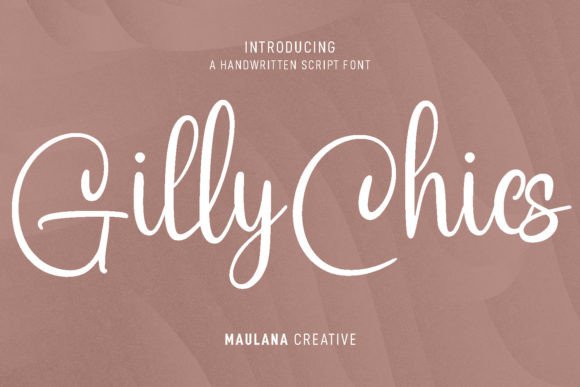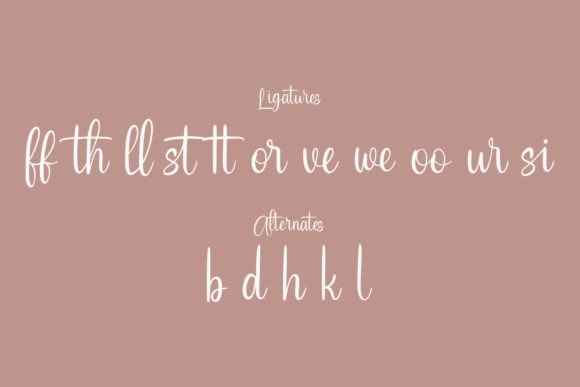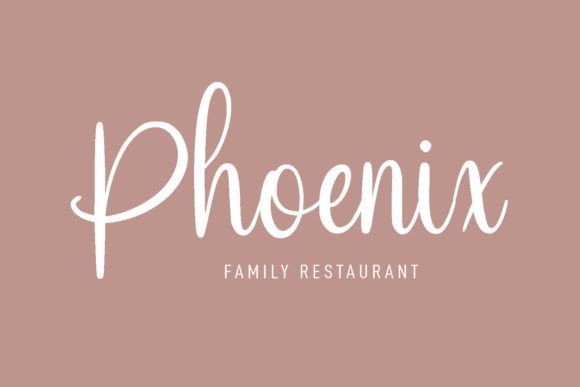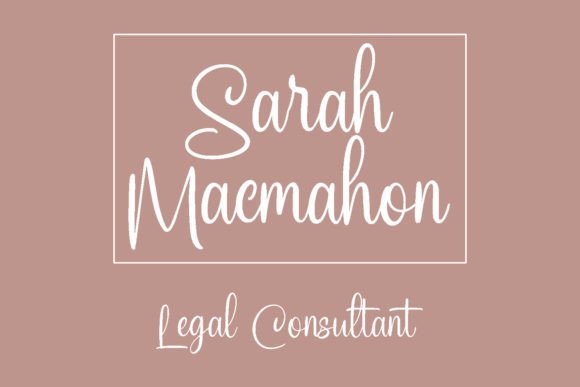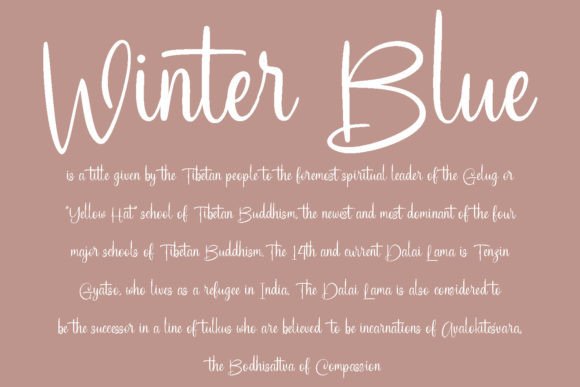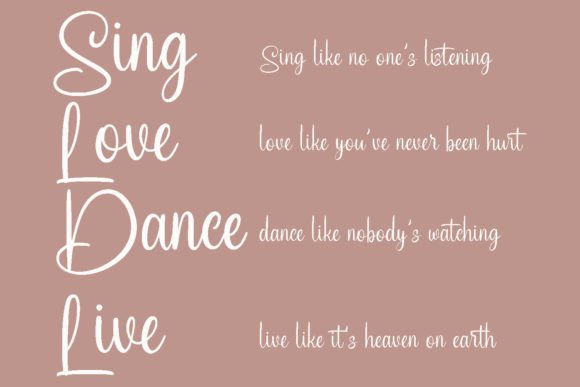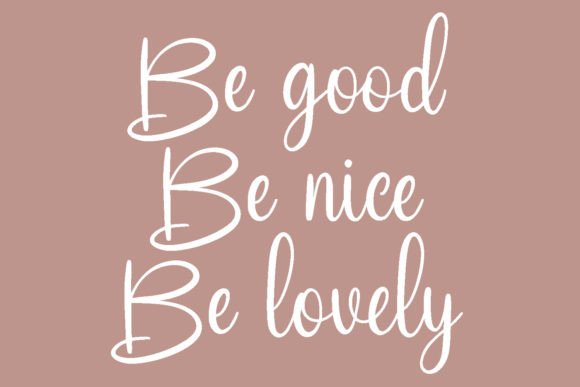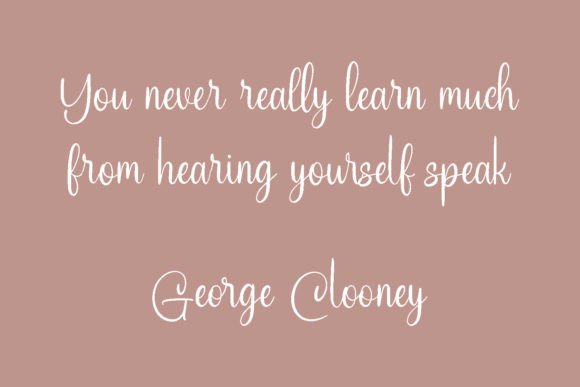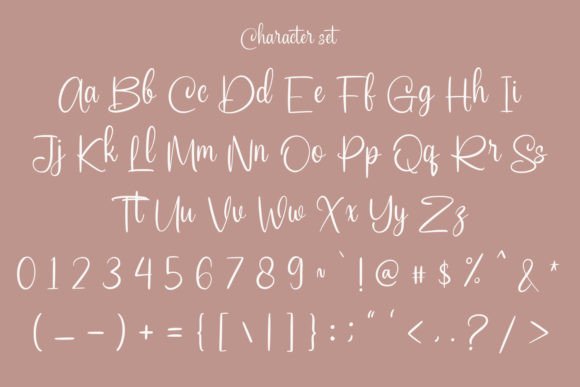
Gilly Chics Font
About Gilly Chics Font
**Gilly Chics: A Fancy and Sweet Handwritten Script Font**
**Gilly Chics** is a fancy and sweet handwritten script font that exudes class, elegance, and modernity. With its beautifully crafted letterforms, this font is a versatile choice suitable for a wide range of design applications, including logos, branding, invitations, stationery, wedding designs, social media posts, and much more.
**Gilly Chics** stands out with its classy and elegant script, showcasing a sense of refinement and sophistication. The font’s modern and sleek appearance makes it an ideal choice for projects that require a touch of contemporary elegance.
This font’s versatility allows it to adapt seamlessly to various applications. In branding and logos, **Gilly Chics** infuses your visual identity with a sense of class and style, helping your brand communicate a message of sophistication and professionalism.
For invitations and wedding designs, this font enhances the romantic and timeless aspects of your projects, setting the tone for memorable celebrations.
In stationery, social media posts, and various other contexts, **Gilly Chics** adds a touch of modern elegance, ensuring your content is both stylish and relatable.
In conclusion, **Gilly Chics** is more than just a font; it’s a design asset that brings class, elegance, and modernity to your creative projects. Whether you’re designing for branding, special occasions, or various other contexts, choose **Gilly Chics** to infuse your work with its unique and stylish charm. Embrace its elegant appearance, and let your creativity flourish with sophistication.